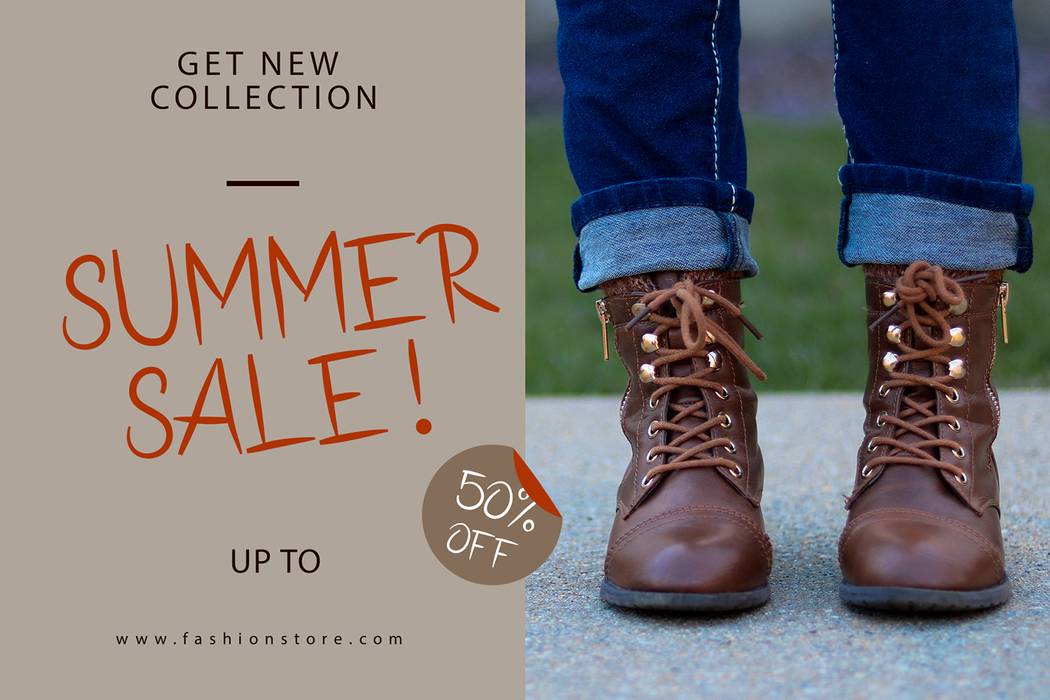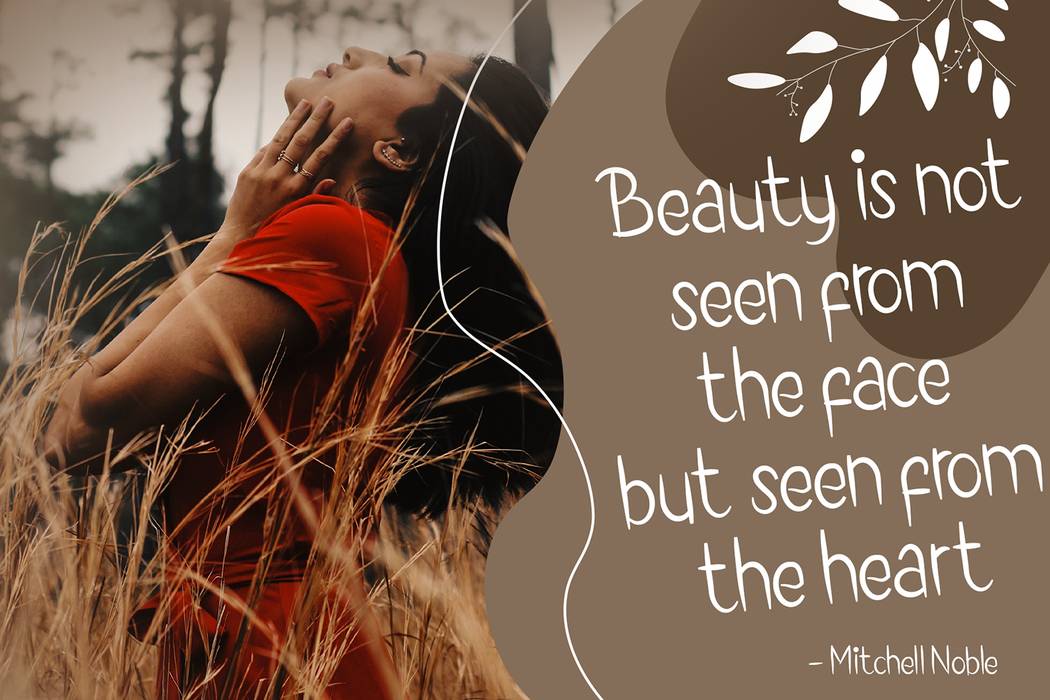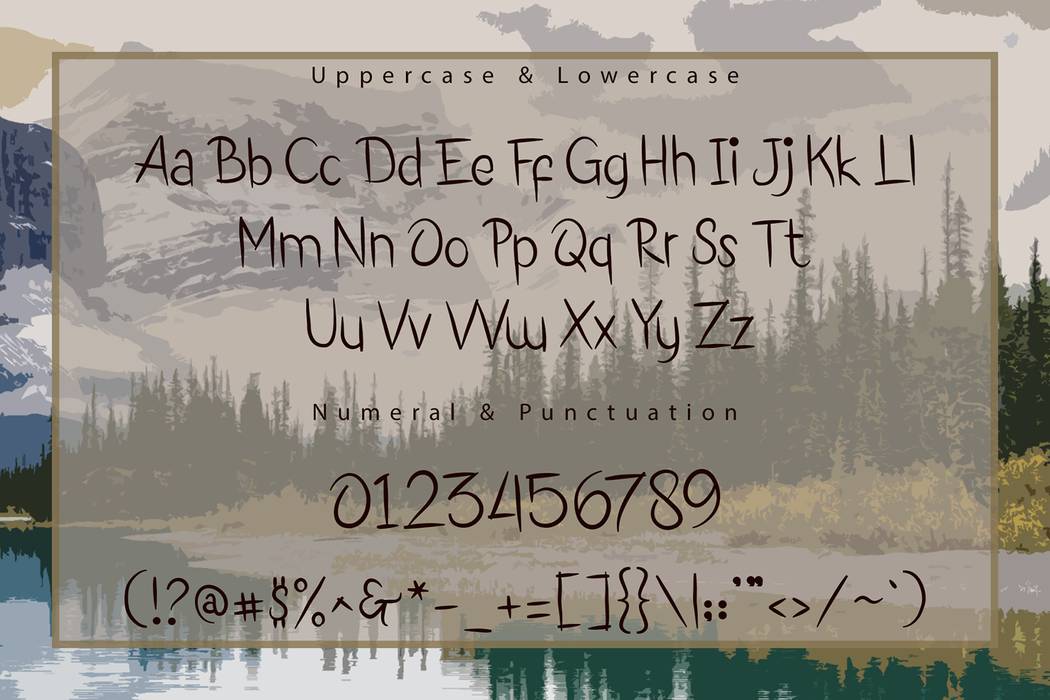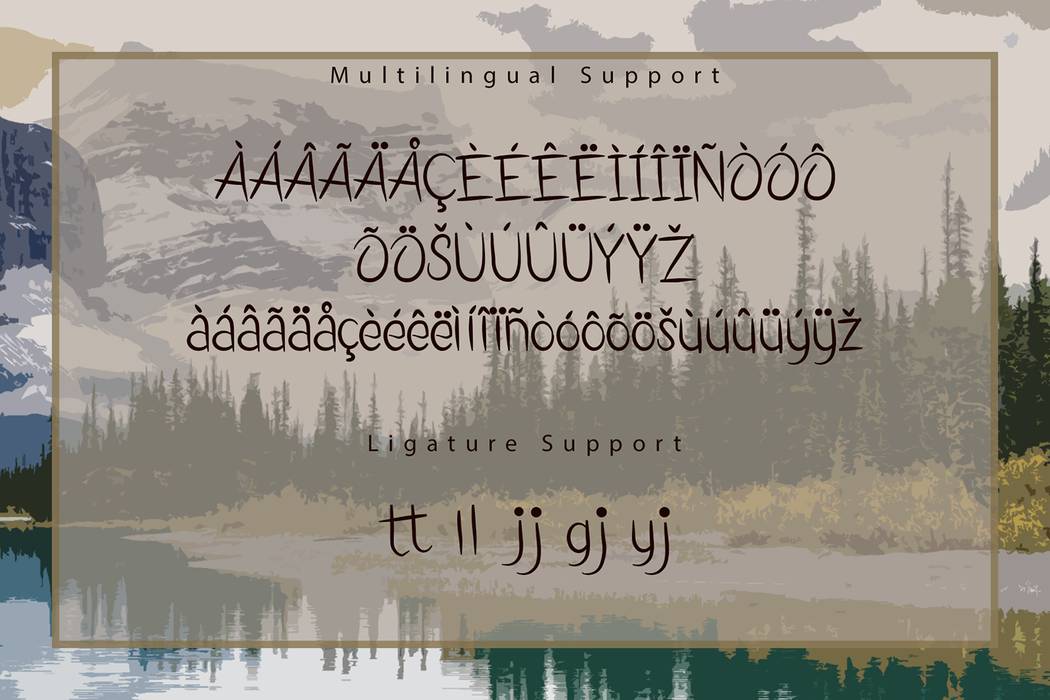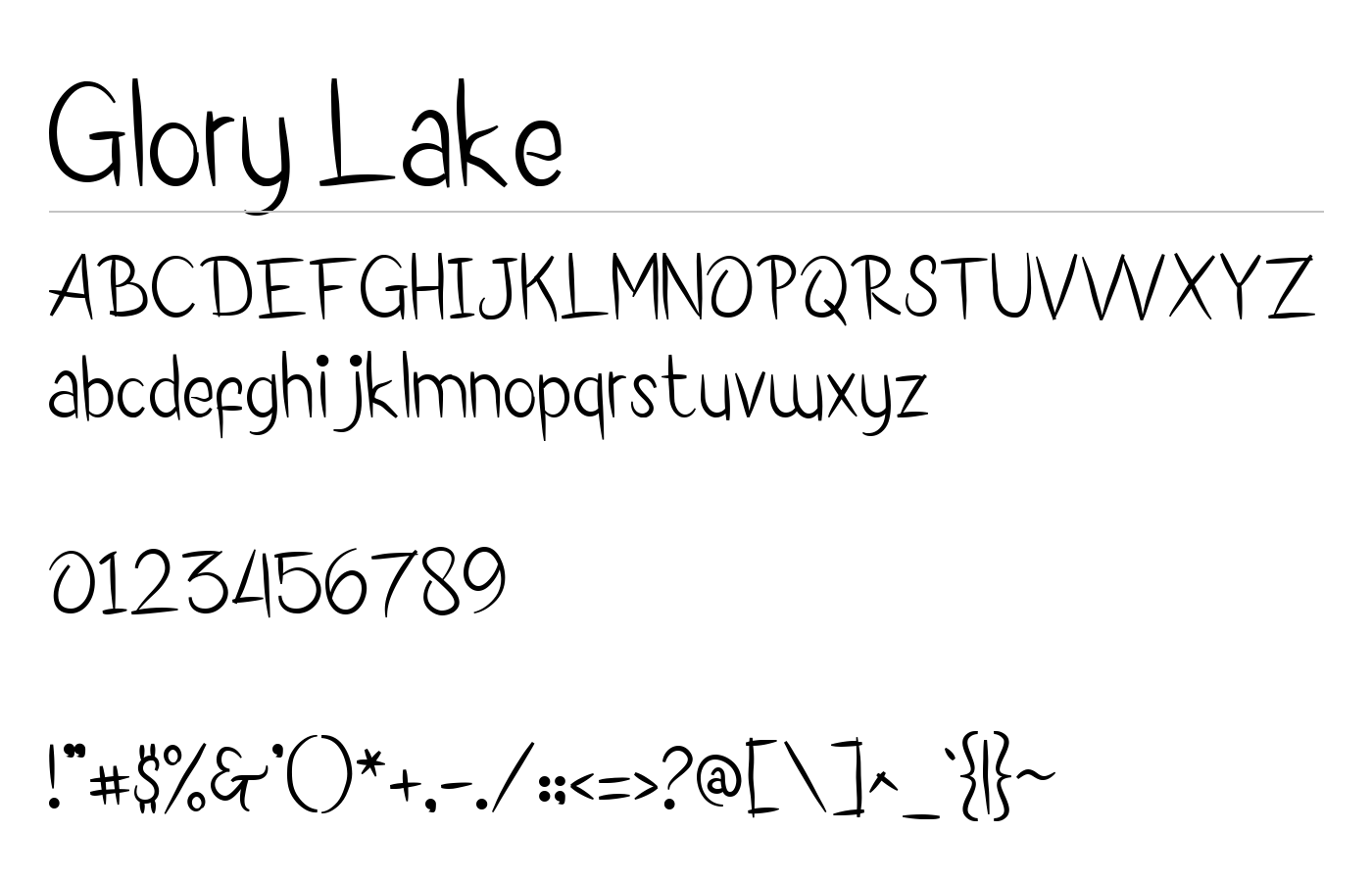
Glory Lake is a playful and whimsical sans serif font with a hand-drawn feel, characterized by its tall, narrow letterforms and slightly irregular strokes that add personality and charm. Its light weight and airy spacing make it ideal for creative projects, children’s books, casual branding, and anywhere a friendly, approachable tone is desired. This font works well in headlines and display text, bringing a lighthearted and informal vibe to your designs.
Glory Lake Font
About Glory Lake Font
| Font family | Glory Lake Font |